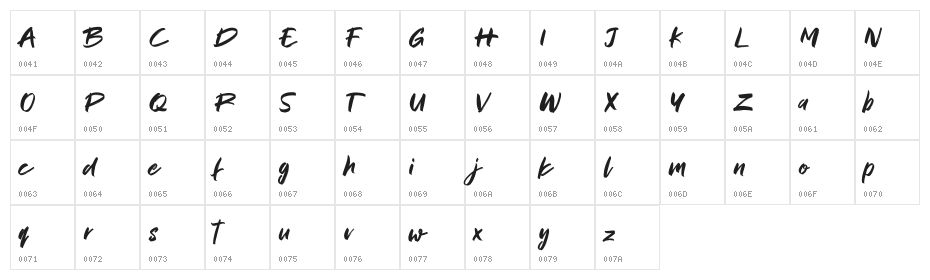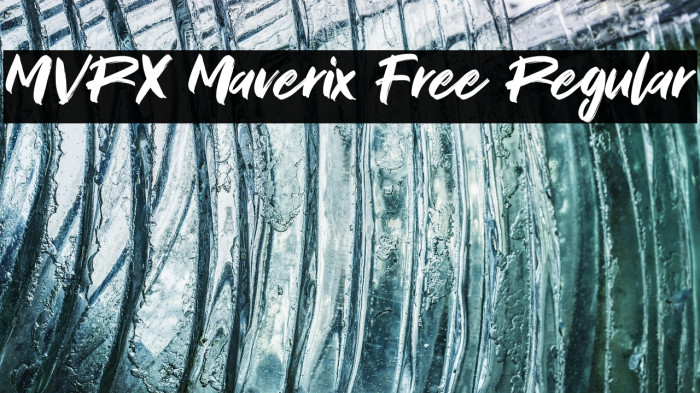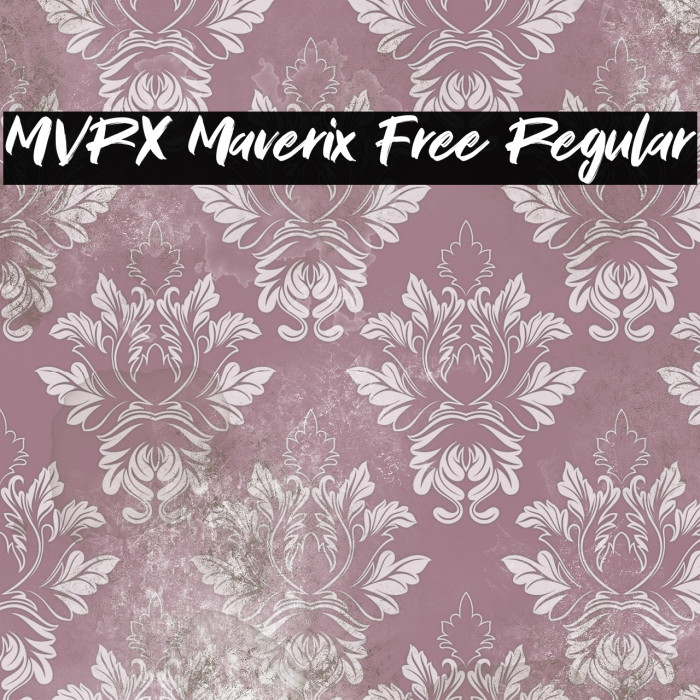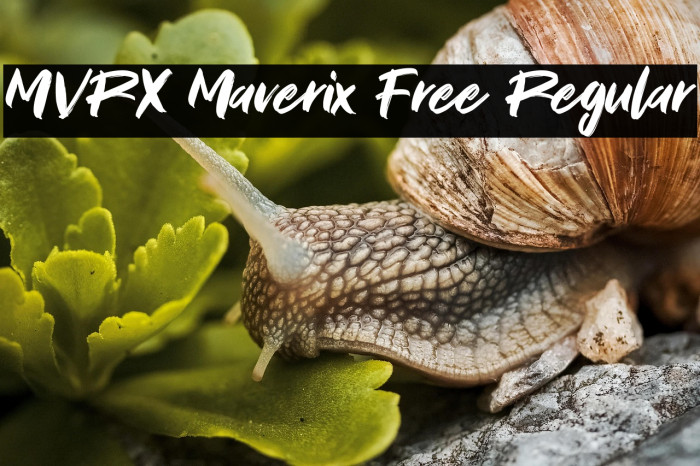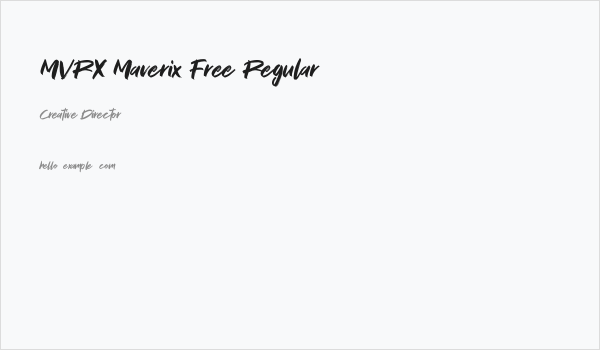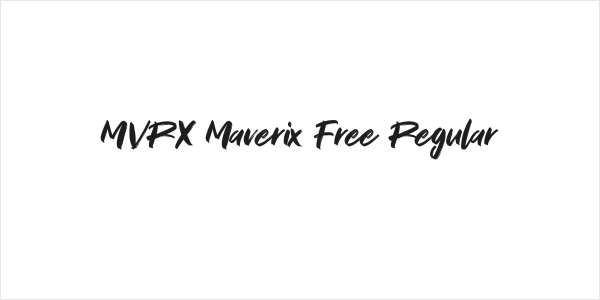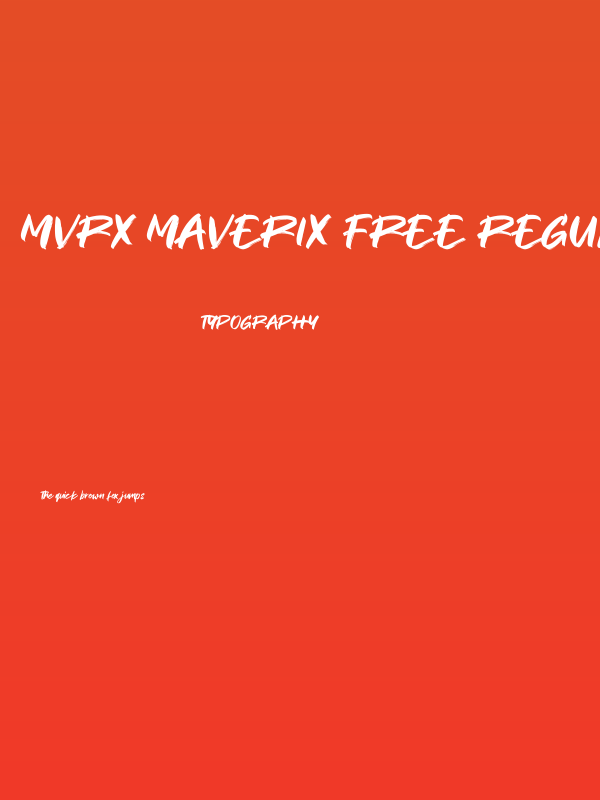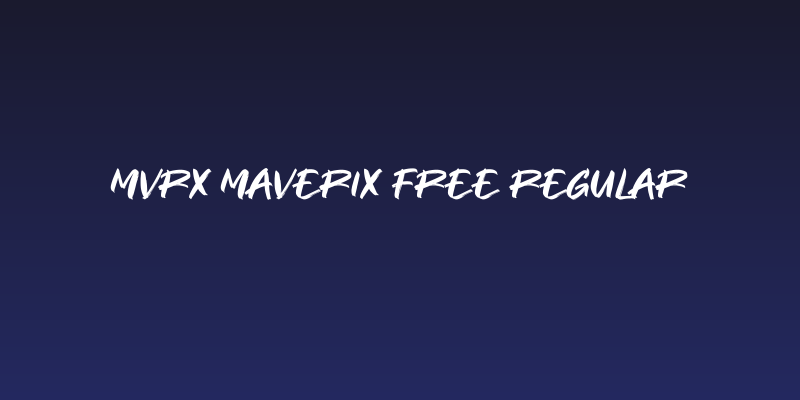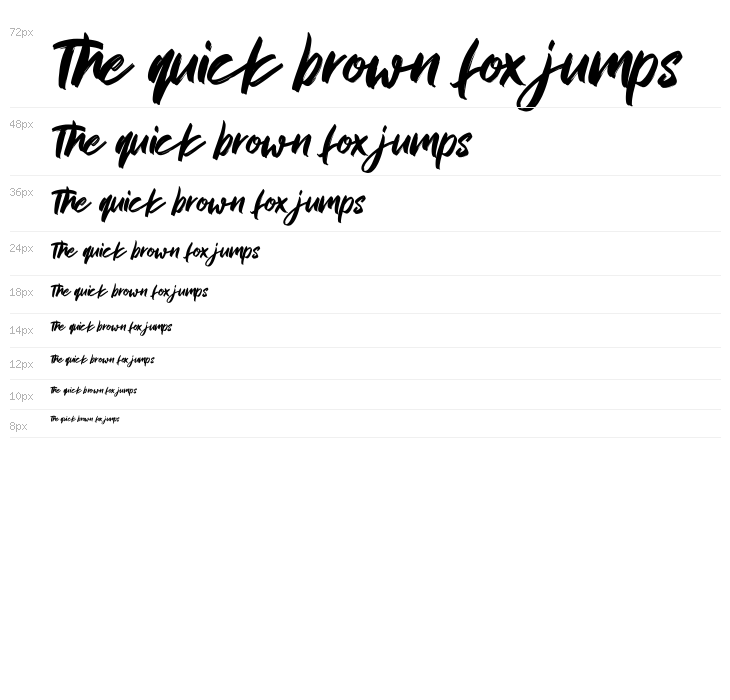
MVRX Maverix Free Regular Font
MVRX Maverix Free Regular Description
This font features a bold and dynamic script style, characterized by its brush-like strokes that convey a sense of energy and movement. The uppercase and lowercase letters are crafted with a natural flow, giving it a handwritten appearance. The strokes vary in thickness, adding a lively and artistic touch. This font is ideal for projects that require a personal and expressive feel, such as branding, invitations, and creative posters. Its unique style stands out, making it suitable for headlines and display purposes.
Use CaseHeadlines, Logos, Display
Proposed ProjectsBranding, invitations, creative posters, headlines, and display purposes.